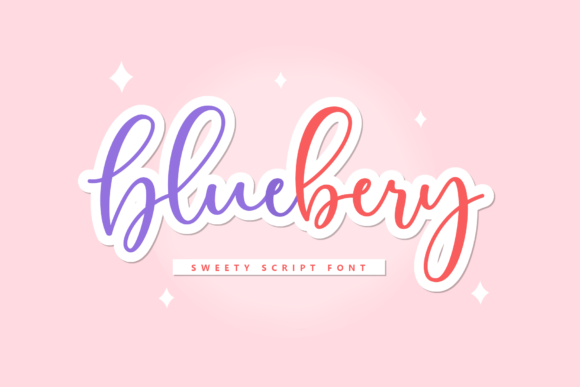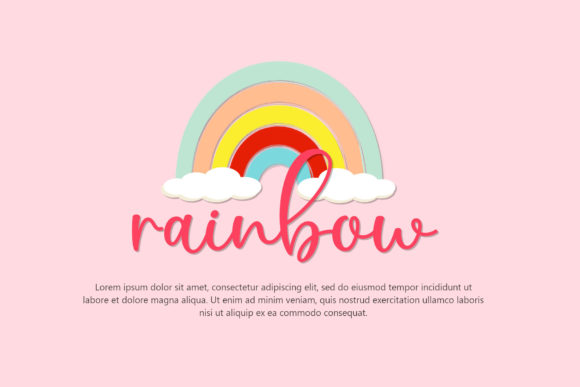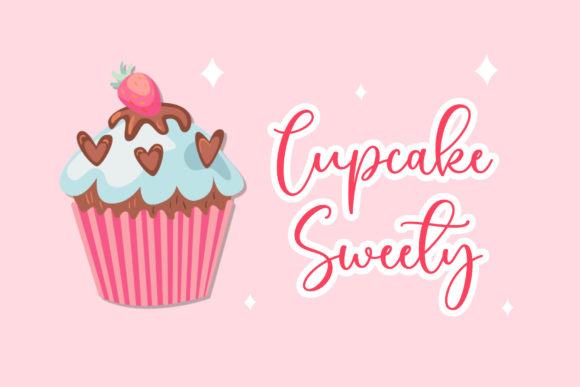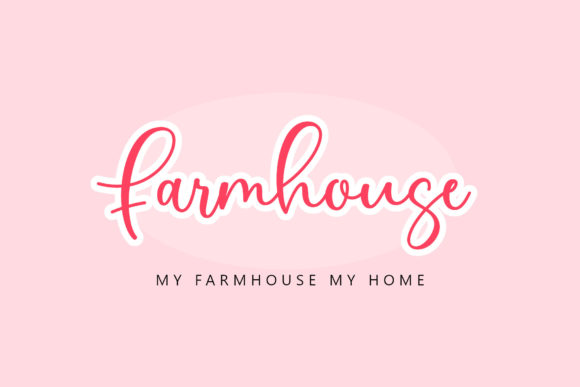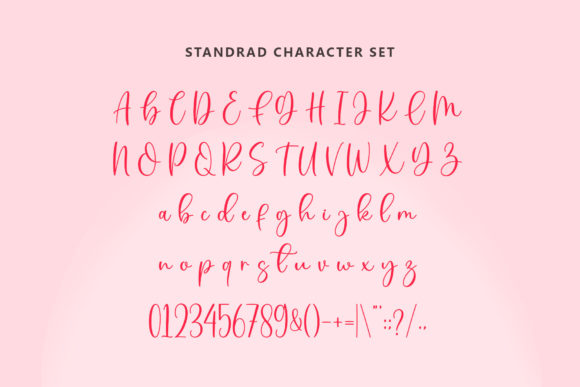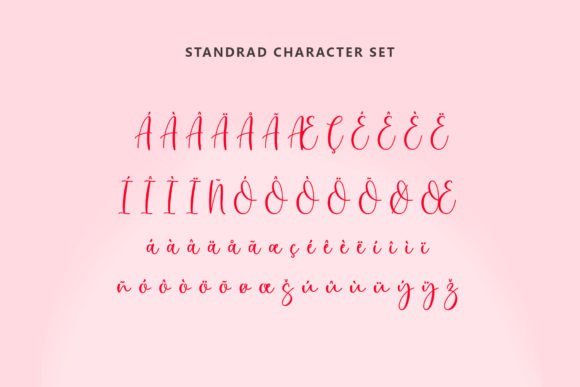
Bluebery Font  Font
About Bluebery Font  Font
Bluebery is a sweet script font designed with a unique shape and medium thickness.
It is suitable for use in your various design projects such as birthday cards, posters, logos, business cards, crafting and many more.